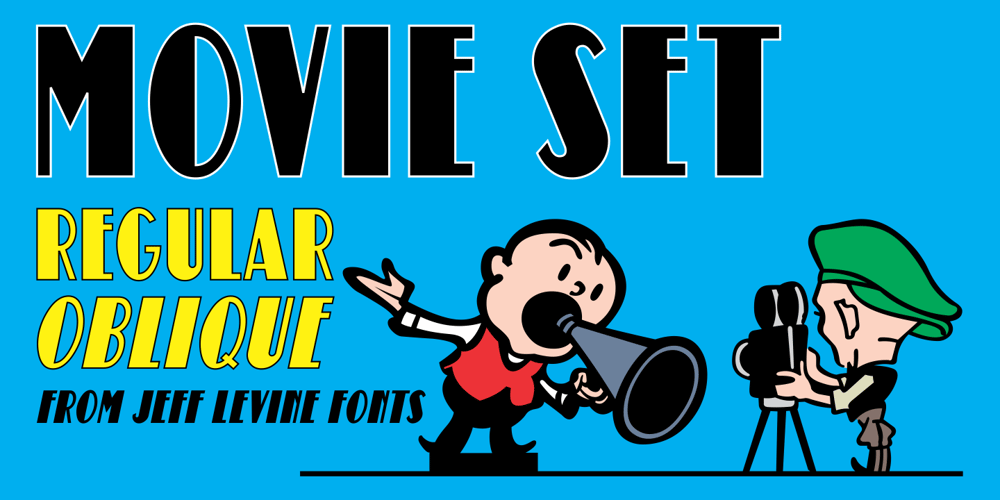
Movie Set JNL
Movie Set JNL font
Movie Set JNL Font Family was designed by Jeff Levine and published by Jeff Levine. Movie Set JNL contains 2 styles and family package options. The hand lettered title on the poster for the 1929 film comedy “Why Leave Home?” inspired Movie Set JNL, which is available in both regular and oblique versions.A classic “thick-and-thin” design with early Art Deco influences, this condensed typeface is perfect for any period projects.